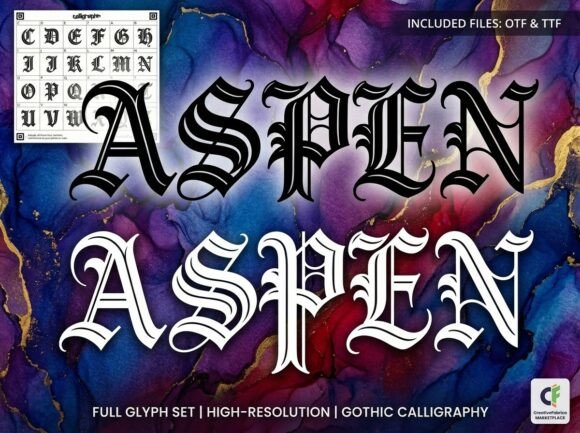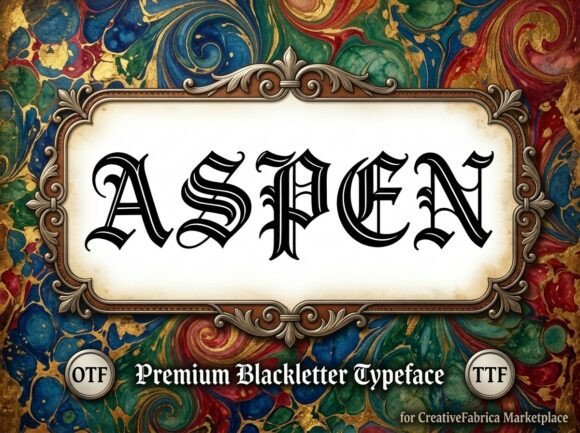
Unlock the Grandeur of the Past with Aspen Font
In the realm of typography, few fonts evoke the same sense of timeless authority and grandeur as Aspen. This classic Old English font is a masterclass in traditional calligraphy, bringing the elegance and sophistication of the past to modern design. With its sharp, rhythmic vertical strokes and intricate, flared terminals, Aspen is the perfect choice for designers and crafters looking to add a touch of luxury and history to their work.
The Characteristics of Aspen Font
Aspen font is a blackletter masterpiece that draws inspiration from the traditional calligraphy of the past. Its sharp, rhythmic vertical strokes give it a sense of strength and authority, while its intricate, flared terminals add a touch of elegance and sophistication. The font’s commanding presence and historical weight make it the perfect choice for a variety of design applications, from luxury spirit labels to high-end diploma design.
Luxury Spirit Labels and Aspen Font
When it comes to luxury spirit labels, the font used can make all the difference. Aspen font is the premier choice for designers looking to create labels that exude luxury and sophistication. Its classic, timeless look pairs perfectly with the rich, velvety textures often associated with high-end spirits, and its commanding presence helps to convey a sense of authority and tradition. Whether you’re designing labels for whiskey, champagne, or cognac, Aspen font is the perfect choice.
Covering the Pages of Fantasy Novels
Independent fantasy novel covers require a font that can capture the imagination and draw readers in. Aspen font is the perfect choice for designers looking to create covers that are both eye-catching and evocative. Its intricate, flared terminals and sharp, rhythmic vertical strokes help to create a sense of drama and mystery, while its historical weight adds a touch of authenticity and depth. Whether you’re designing covers for epic fantasies or dark, gothic tales, Aspen font is the perfect choice.
High-End Diploma Design
When it comes to high-end diploma design, the font used can make all the difference. Aspen font is the premier choice for designers looking to create diplomas that exude luxury and sophistication. Its classic, timeless look pairs perfectly with the formal, structured layout of traditional diplomas, and its commanding presence helps to convey a sense of authority and tradition. Whether you’re designing diplomas for universities, colleges, or private institutions, Aspen font is the perfect choice.
Cinematic “Dark-Academia” Social Media Headers
The “dark-academia” aesthetic has become increasingly popular in recent years, with its moody, atmospheric vibe and sense of mystery and intrigue. Aspen font is the perfect choice for designers looking to create cinematic social media headers that capture the essence of this aesthetic. Its intricate, flared terminals and sharp, rhythmic vertical strokes help to create a sense of drama and tension, while its historical weight adds a touch of authenticity and depth. Whether you’re designing headers for Instagram, Facebook, or Twitter, Aspen font is the perfect choice.
Why Choose Aspen Font?
So why choose Aspen font for your design projects? Here are just a few reasons:
- Timeless authority: Aspen font exudes a sense of timeless authority and grandeur, making it perfect for luxury brands and high-end designs.
- Historical weight: The font’s historical weight adds a touch of authenticity and depth to any design, making it perfect for projects that require a sense of tradition and heritage.
- Versatility: Aspen font is incredibly versatile, and can be used for a wide range of design applications, from luxury spirit labels to high-end diploma design.
- Elegance and sophistication: The font’s intricate, flared terminals and sharp, rhythmic vertical strokes add a touch of elegance and sophistication to any design, making it perfect for luxury brands and high-end designs.
| Font Name | Aspen Font |
| Author | mail.skygroup |
In conclusion, Aspen font is a classic Old English font that brings timeless authority and grandeur to modern design. Its sharp, rhythmic vertical strokes and intricate, flared terminals make it the perfect choice for luxury spirit labels, independent fantasy novel covers, high-end diploma design, and cinematic “dark-academia” social media headers. With its commanding presence and historical weight, Aspen font is the premier choice for designers and crafters looking to add a touch of luxury and sophistication to their work.